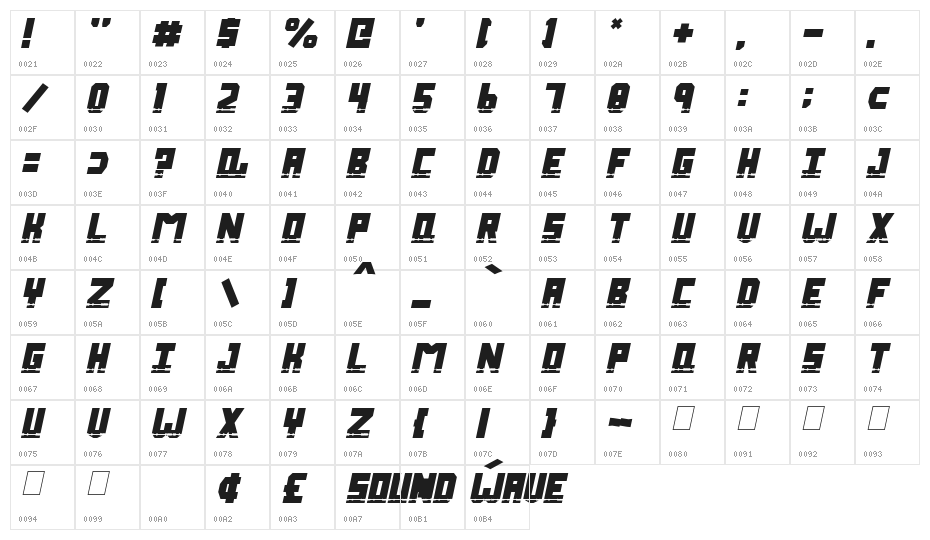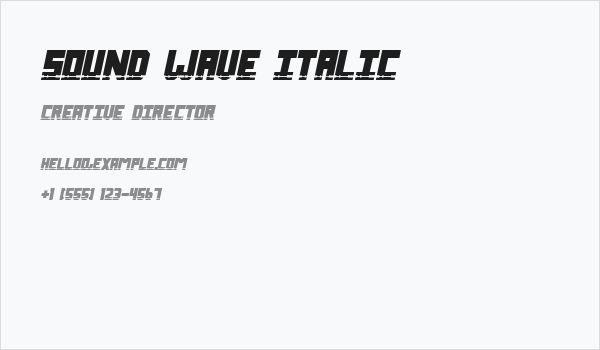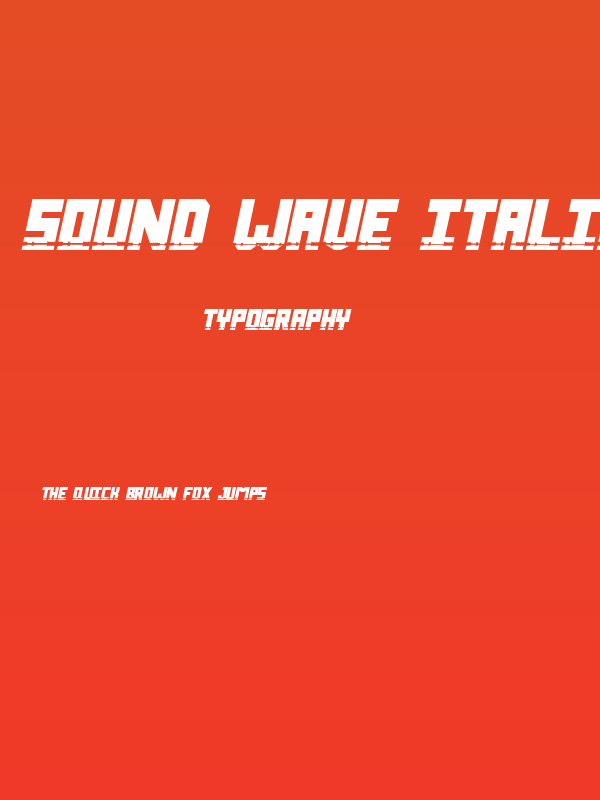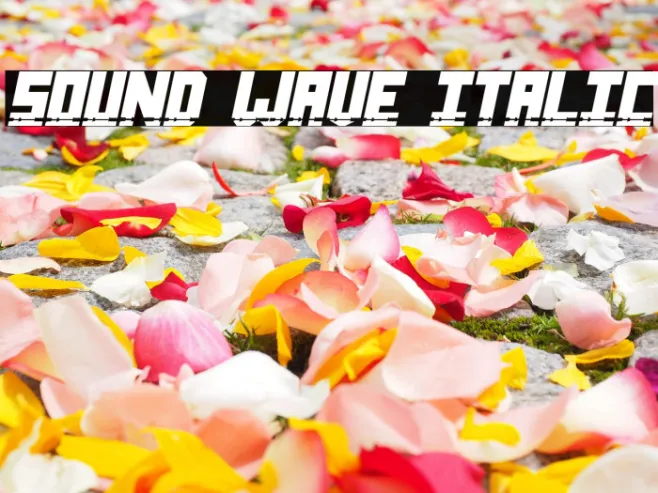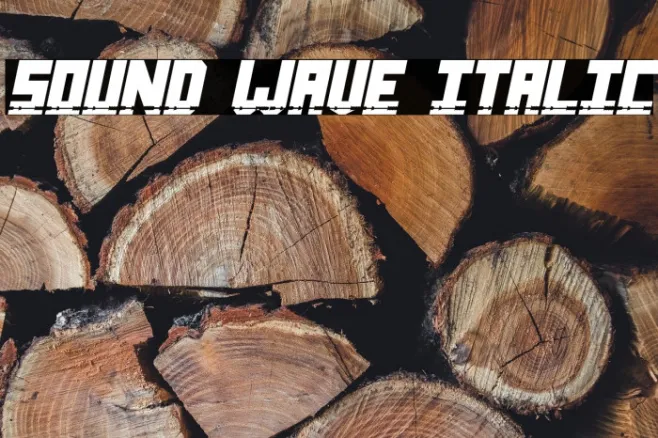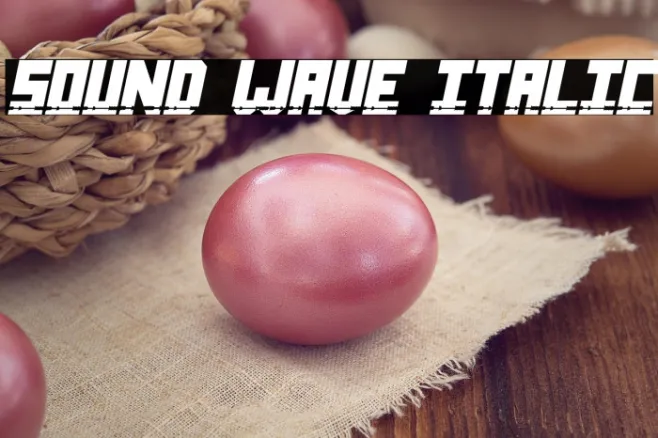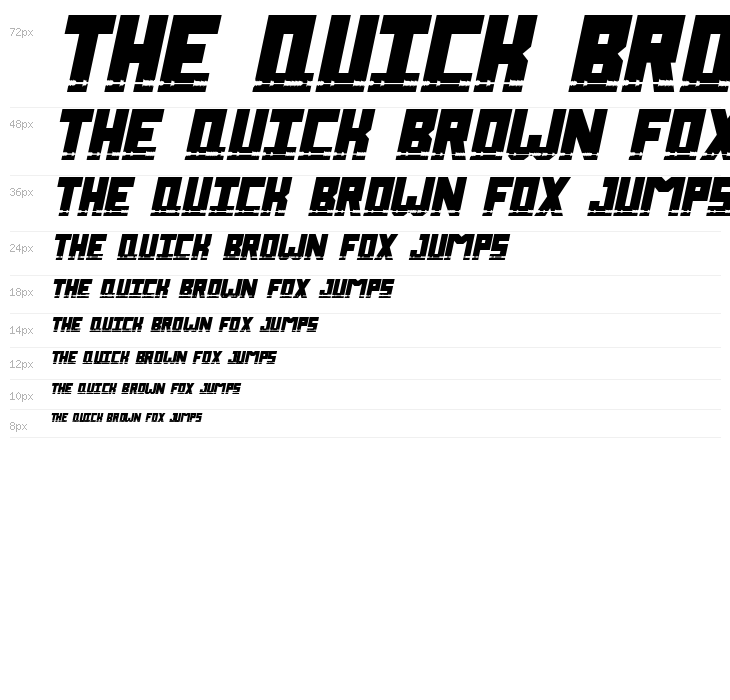
Sound Wave Italic Font
Sound Wave Italic Description
This font features a bold and dynamic style with a distinct italic slant, giving it a sense of motion and energy. The characters are blocky with sharp edges and a unique wave-like pattern running through the middle, reminiscent of sound waves or digital glitches. This design element adds a modern and edgy feel, making it stand out in any design. The uppercase and lowercase letters maintain a consistent style, while the numerals and special characters complement the overall aesthetic. The font's boldness and unique design make it suitable for attention-grabbing headlines and creative projects.
| Proposed Projects | Perfect for music album covers, tech-related branding, sports team logos, and dynamic poster designs. |